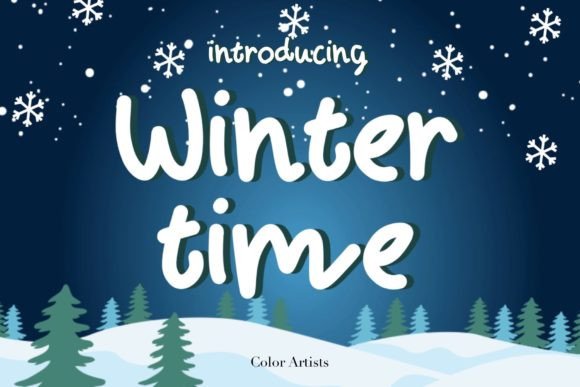
Journey into a Winter Wonderland with Wintertime Font
Discover the enchanting Wintertime Font, a script font family that weaves the magic of winter into every letter. Designed by the talented team at MyFontsShop, this font is an artistic masterpiece that brings the beauty and charm of the snowy season to life.
With its elegant curves and playful flourishes, Wintertime Font adds a touch of whimsy and sophistication to your creative projects. Whether you're designing invitations, crafting social media posts, or creating stunning logos, this font will elevate your work to new heights.
Get Cozy with the Warmth of Winter
Wintertime Font exudes a sense of coziness and warmth that envelops your projects with a comforting embrace. Imagine the crackling of a fireplace, the scent of gingerbread cookies baking in the oven, and the feeling of snuggling up with a good book on a cold winter night. This font captures all these enchanting elements, transforming your designs into a winter wonderland.
Embrace the Beauty of Snow-kissed Landscapes
With Wintertime Font, you can effortlessly transport your audience to serene winter landscapes. Its soft, flowing lines evoke the gentle fall of snowflakes, while its intricate details hint at the delicate beauty of frost-covered leaves. This font is perfect for projects that aim to evoke a sense of nostalgia, romance, and the timeless magic of winter.
Unlock Your Creativity with Endless Possibilities
Wintertime Font is more than just a font; it's a gateway to a world of creative possibilities. Let your imagination soar as you explore its versatility across various projects. From wedding invitations that exude elegance to children's books that spark wonder, this font adapts seamlessly to your creative vision.